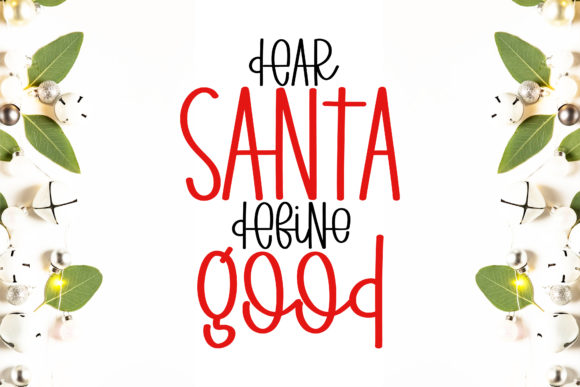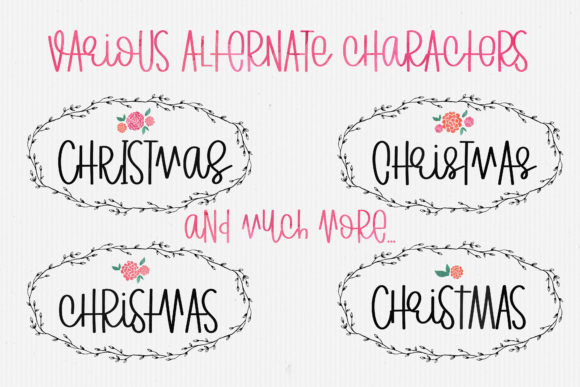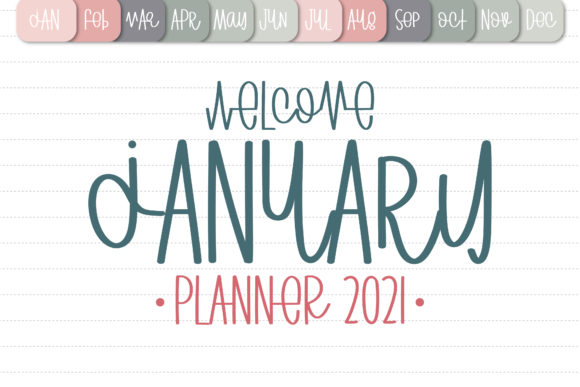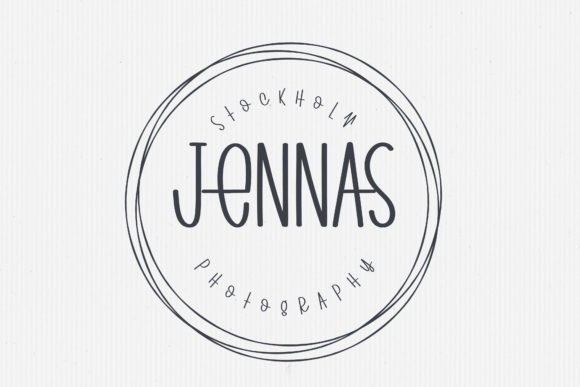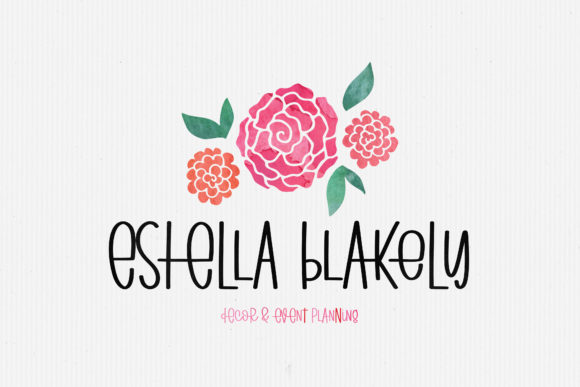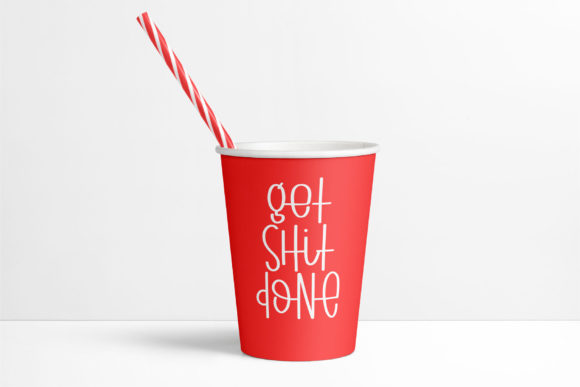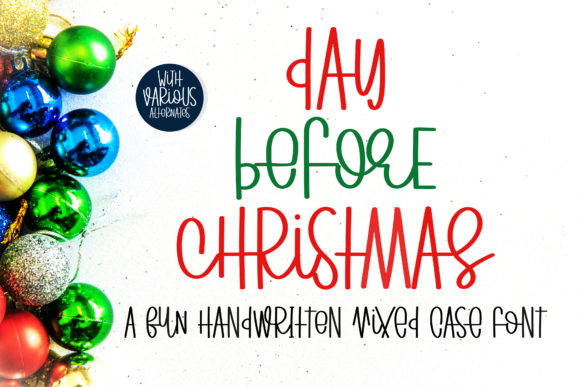
Introducing the Day Before Christmas Font: A Sweet and Quirky Handwritten Delight
Are you on the hunt for a font that adds a touch of whimsy and friendliness to your designs? Look no further than the Day Before Christmas font! This sweet and quirky handwritten font is perfect for designers and crafters looking to infuse their creative projects with a dash of personality. In this article, we’ll dive into the world of Day Before Christmas, exploring its unique features, versatility, and the endless possibilities it offers for making your designs stand out.
The Charm of Day Before Christmas Font
Day Before Christmas is a beautifully crafted handwritten font that exudes a sense of warmth and approachability. Its friendly feel makes it incredibly versatile, suitable for a wide range of contexts and design applications. Whether you’re working on a festive holiday project, a fun and playful craft, or a more serious design, this font is sure to bring a smile to your audience’s faces.
Key Features of Day Before Christmas Font
- Handwritten style: Day Before Christmas boasts a genuine handwritten look, complete with subtle imperfections and character.
- Quirky and playful: This font is perfect for designs that require a touch of whimsy and fun.
- Versatile: Use it for a wide range of projects, from holiday cards and decorations to craft projects and digital designs.
- Easy to read: Despite its playful nature, Day Before Christmas remains clear and easy to read, making it perfect for body text and headlines.
So, what can you create with the Day Before Christmas font? The possibilities are endless! Here are a few ideas to get you started:
- Holiday cards and decorations: Add a personal touch to your holiday cards, gift tags, and decorations with this charming font.
- Craft projects: Use Day Before Christmas to create unique and eye-catching craft projects, such as DIY signs, banners, and iron-on designs.
- Digital designs: Incorporate this font into your digital designs, including social media graphics, blog posts, and website headers.
- Stationery and invitations: Add a touch of personality to your stationery, invitations, and party decor with this delightful font.
Tips for Using Day Before Christmas Font
To make the most of Day Before Christmas, here are a few tips to keep in mind:
- Experiment with colors: This font looks great in a variety of colors, so don’t be afraid to get creative and try out different hues.
- Mix and match: Combine Day Before Christmas with other fonts to create a unique and visually appealing design.
- Play with sizes: Use this font in a range of sizes to add visual interest and emphasis to your design.